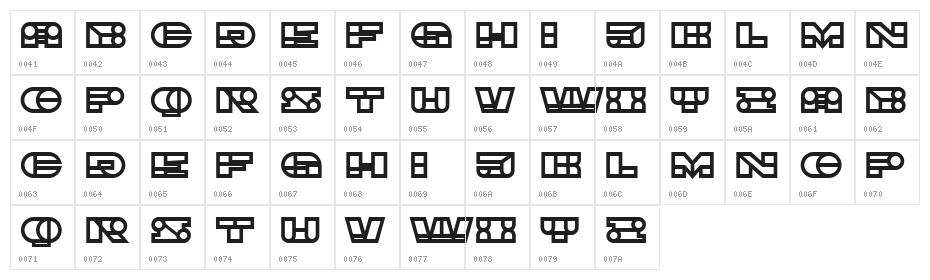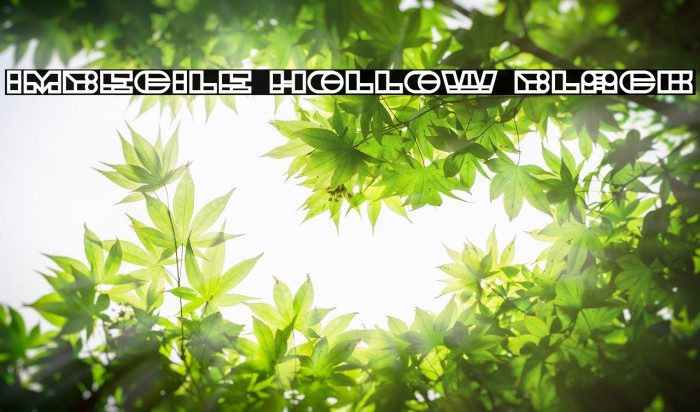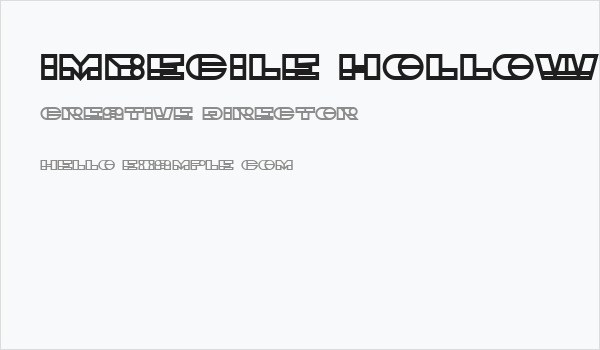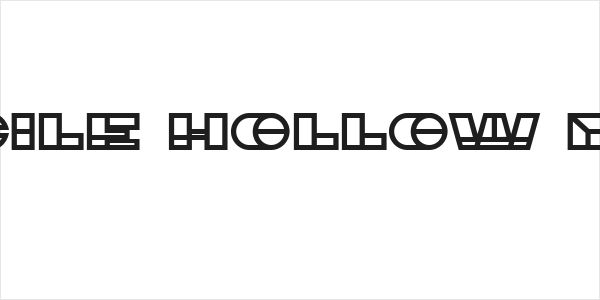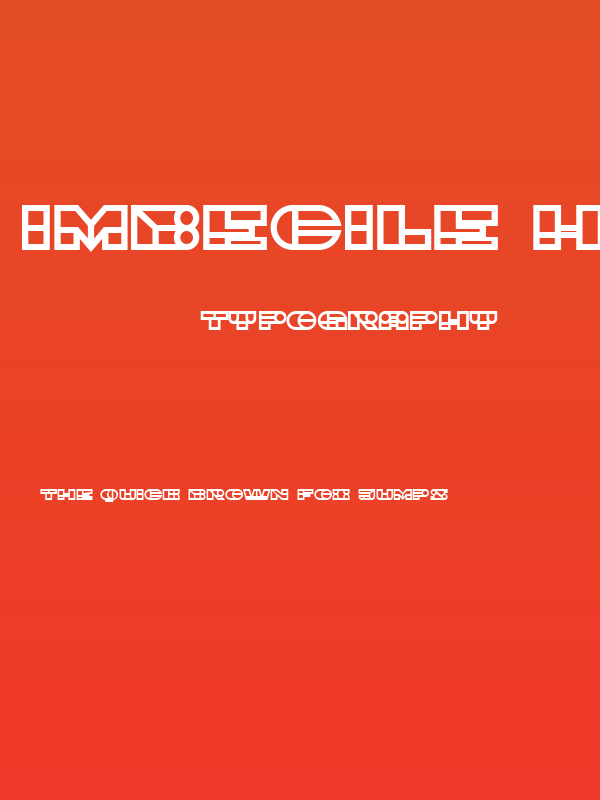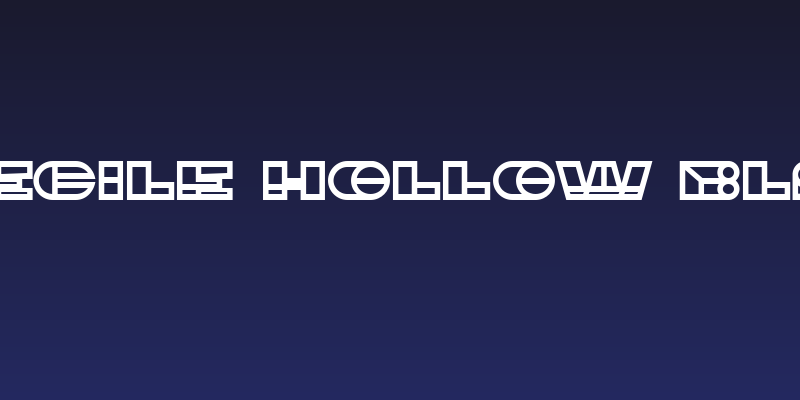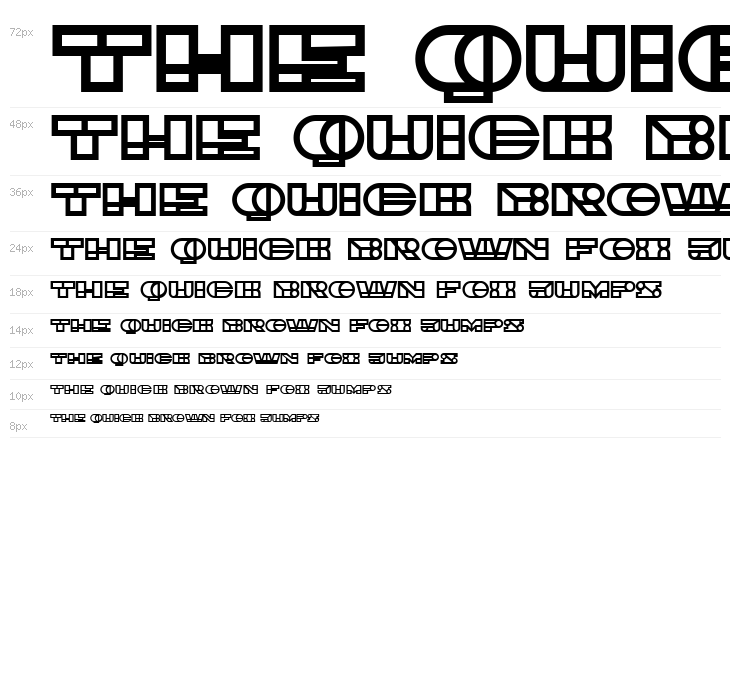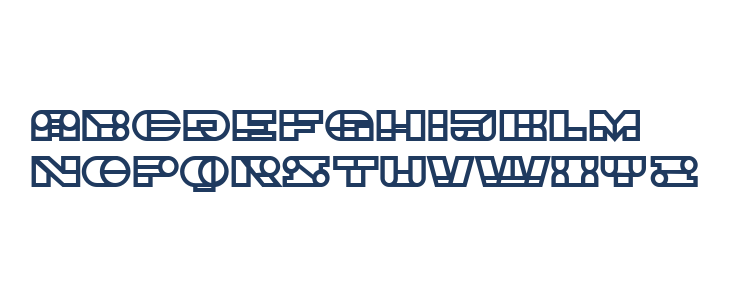
Imbecile Hollow Black Font
Imbecile Hollow Black Description
This font features a bold, geometric design with hollow interiors, creating a striking and modern appearance. The characters are constructed with thick lines and sharp angles, giving them a futuristic and industrial feel. The hollow spaces within each letter add a unique dimension, making the font stand out in any design. The uppercase and lowercase letters maintain a consistent style, while the numbers and special characters integrate seamlessly with the overall aesthetic. This font's distinct look makes it ideal for projects that require a bold statement.